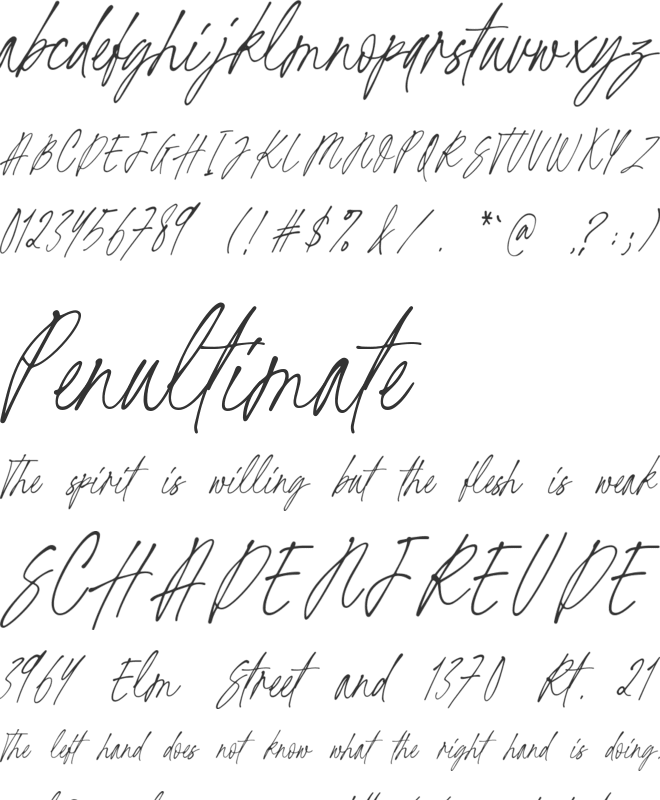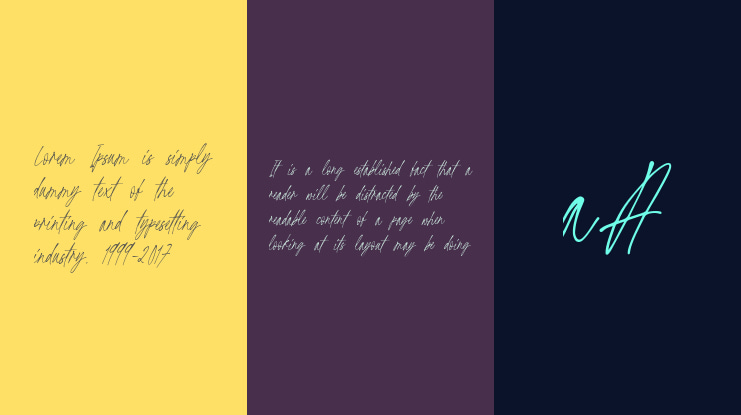
Glowrious Morning Font
Introducing, Glowrious Morning– A Signature Font. This font has many ligatures, making it looks great to be used for modern and minimalistic design themes.